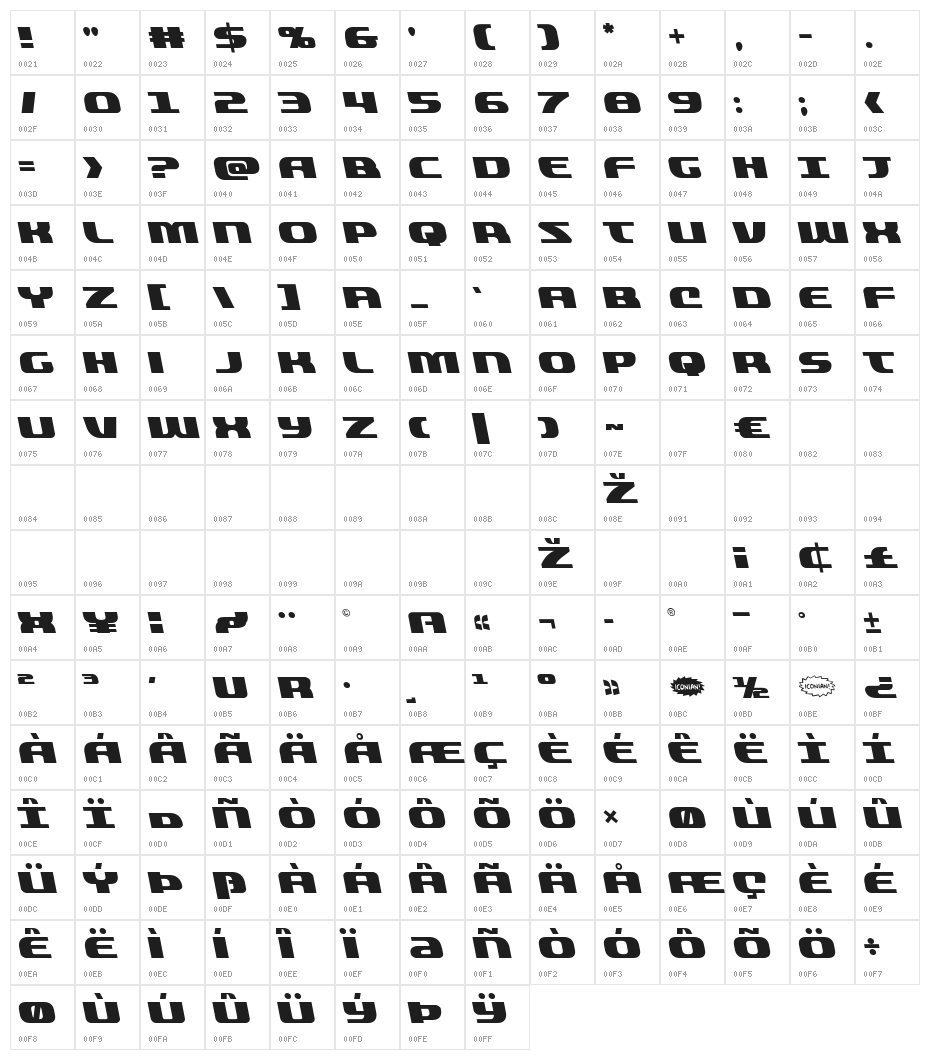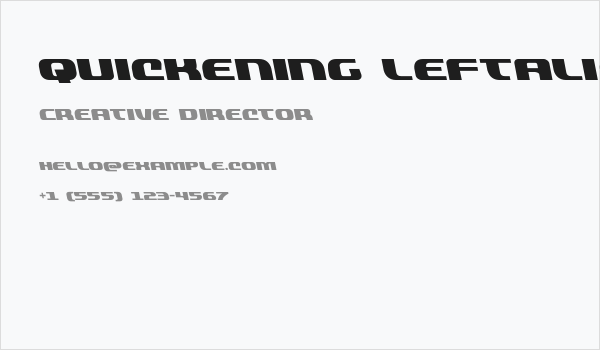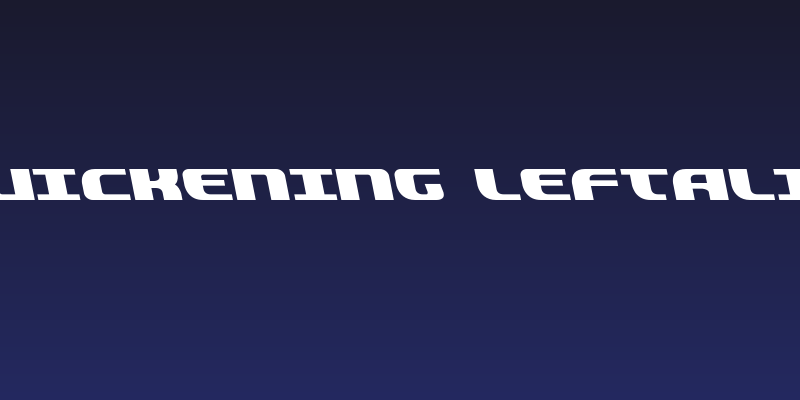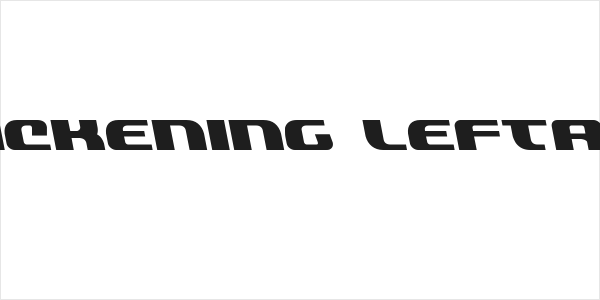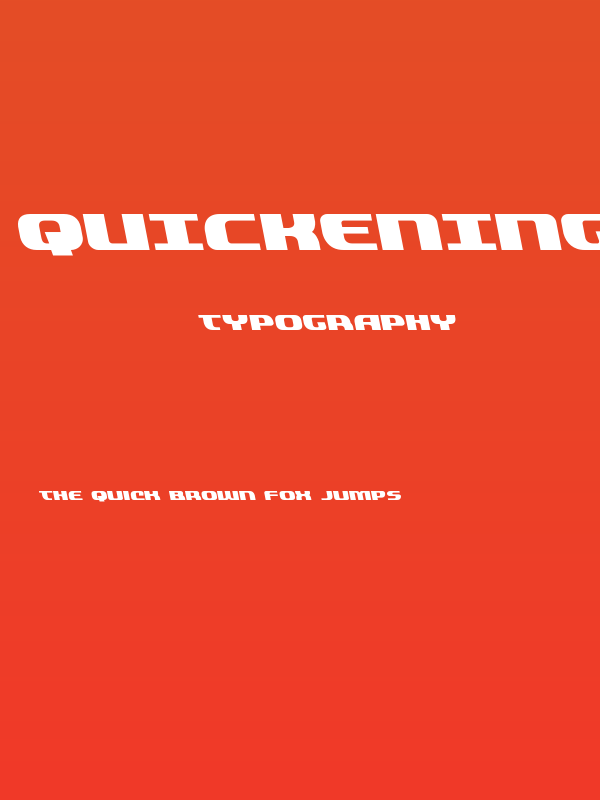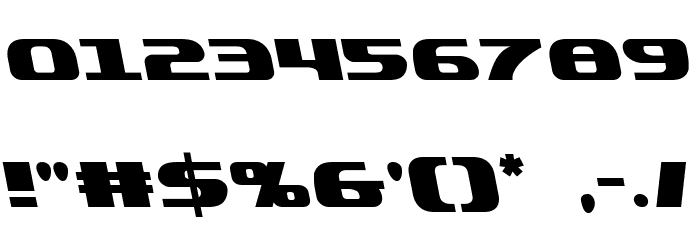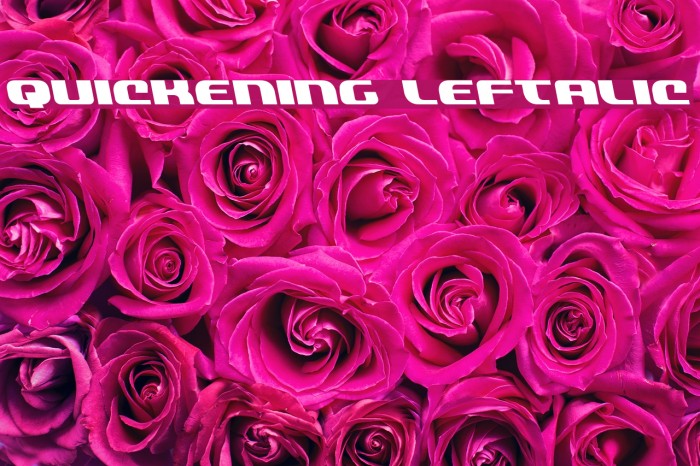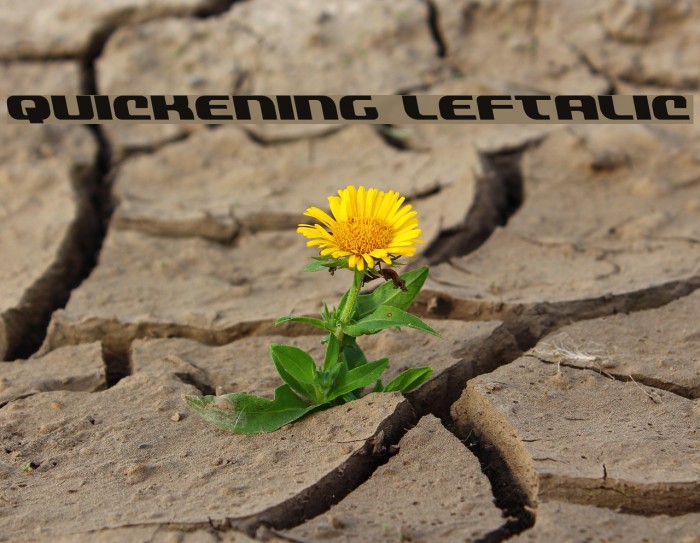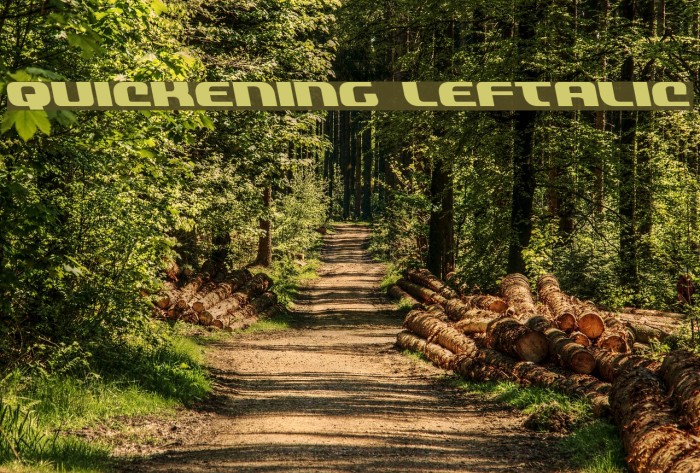
Quickening Leftalic Font
Quickening Leftalic Description
This font features a bold and dynamic style with a futuristic flair. The characters are slightly italicized, giving a sense of motion and speed. The strokes are thick and consistent, providing a strong visual impact. The design incorporates sharp angles and geometric shapes, creating a modern and edgy appearance. The uppercase and lowercase letters maintain a uniform width, contributing to a cohesive look. The numbers and special characters follow the same bold and angular design, ensuring consistency across all elements. This font is ideal for projects that require a striking and contemporary aesthetic.